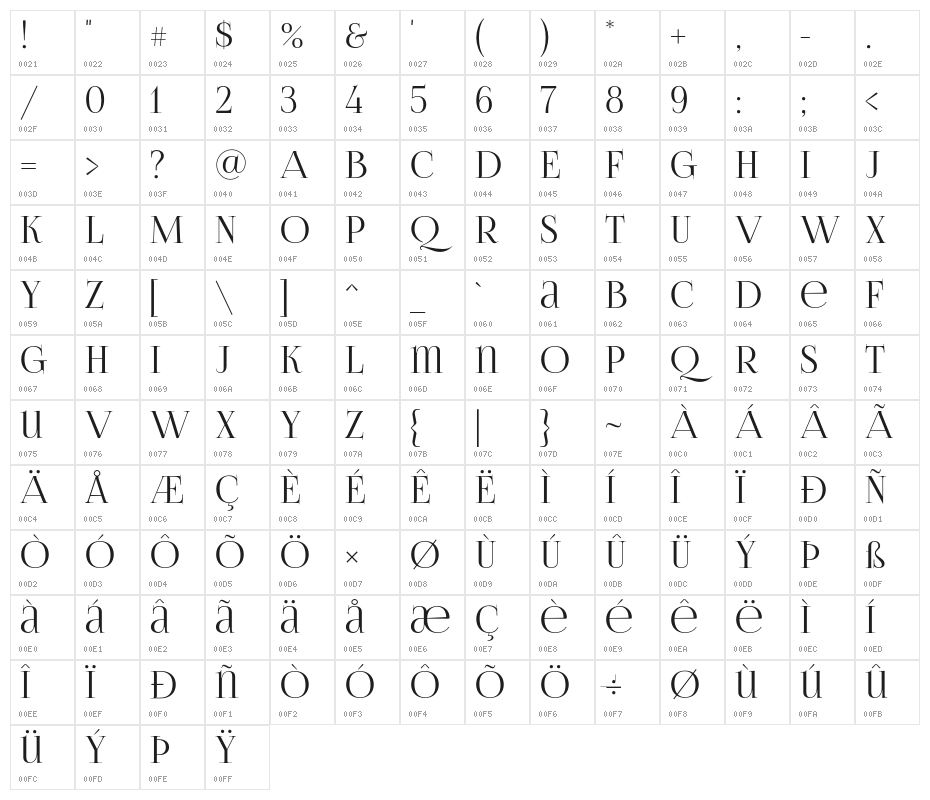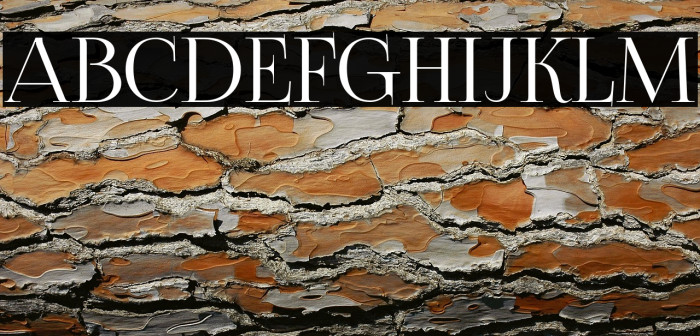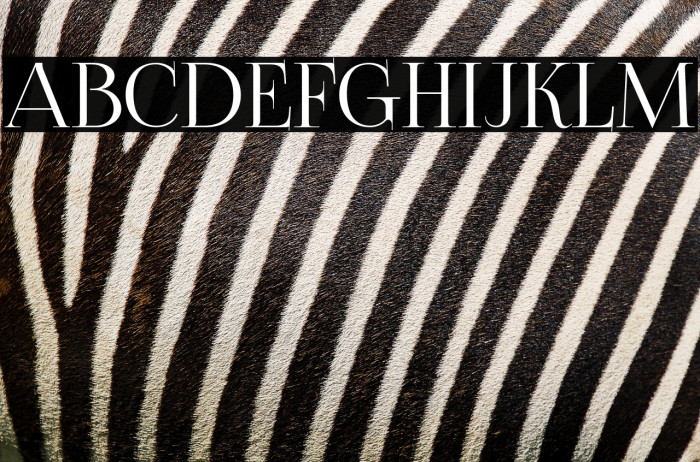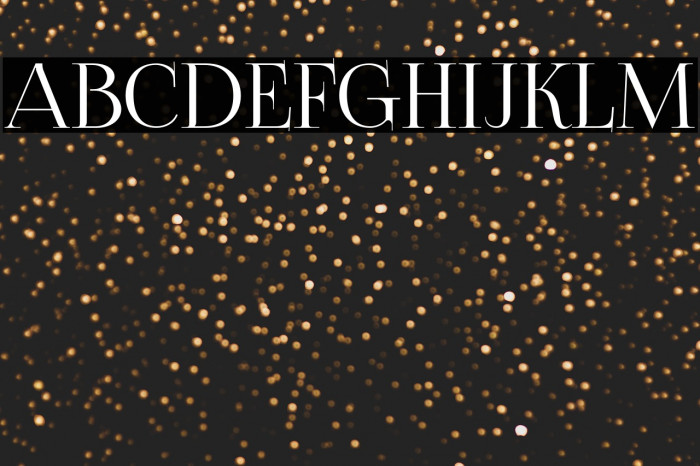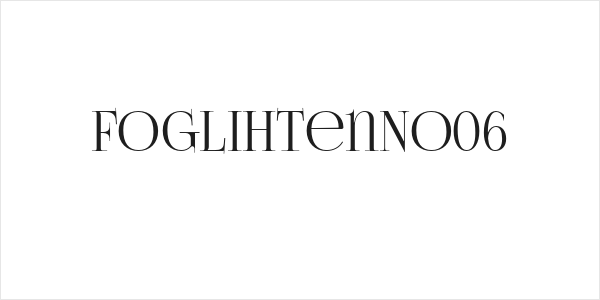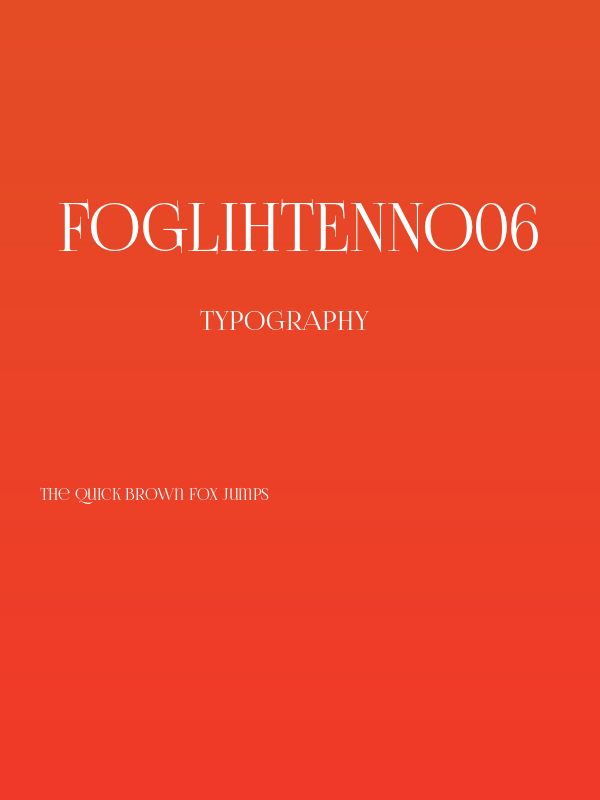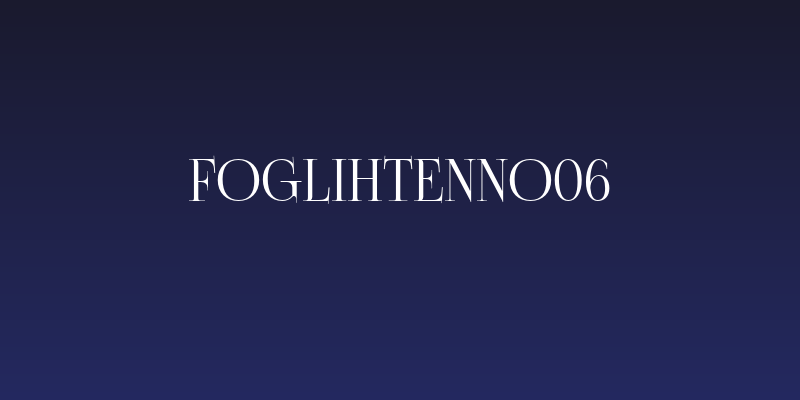
FoglihtenNo06 Font
FoglihtenNo06 Description
This font features a sophisticated and elegant design, characterized by its high contrast between thick and thin strokes. The serifs are sharp and pronounced, adding a touch of classic refinement. The uppercase letters exhibit a traditional formality, while the lowercase letters maintain a consistent style that complements the overall aesthetic. The numerals are distinct and clear, ensuring readability. Special characters are crafted with the same attention to detail, making them suitable for a variety of uses. The font's design is both timeless and versatile, suitable for projects that require a touch of elegance and sophistication.
| Use Case | Headlines, Logos, Editorial design |
| Proposed Projects | Ideal for luxury branding, editorial design, wedding invitations, and high-end product packaging. |